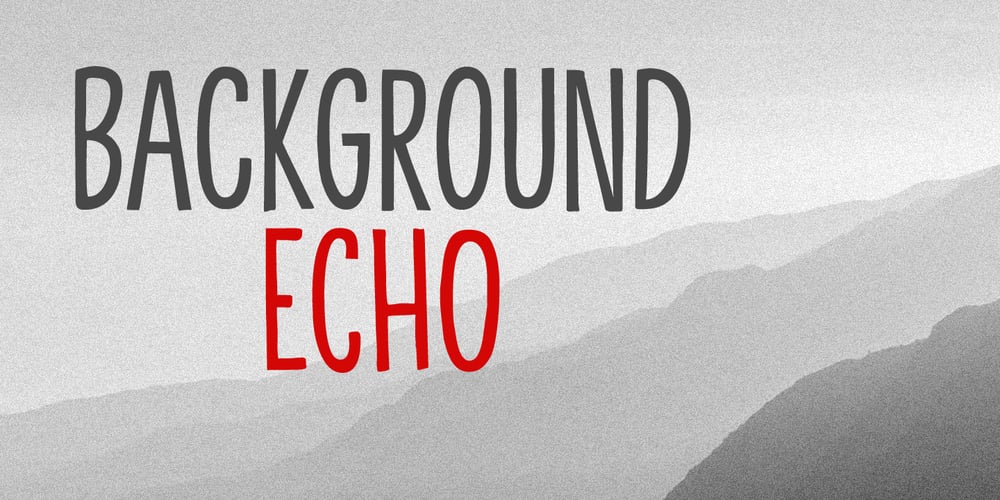
Background Echo
Background Echo font
Background Echo Font Family was designed by David Kerkhoff and published by Hanoded. Background Echo contains 4 styles and family package options. I don’t live in the mountains, so when we go on holiday and visit the mountains, we always like to hear the echo! A bit childish, I know, but that’s how it is.Background Echo is a very nice, handmade, all caps font. It’s not exactly a laser-cut design; glyphs are a bit uneven, wobbly in places and have their own idea of what they should look like. That, my dear potential customers, is the charm of a hand made font!Background Echo comes with a vast array of diacritics, regular and bold styles and a selection of interesting swashes for the upper case glyphs